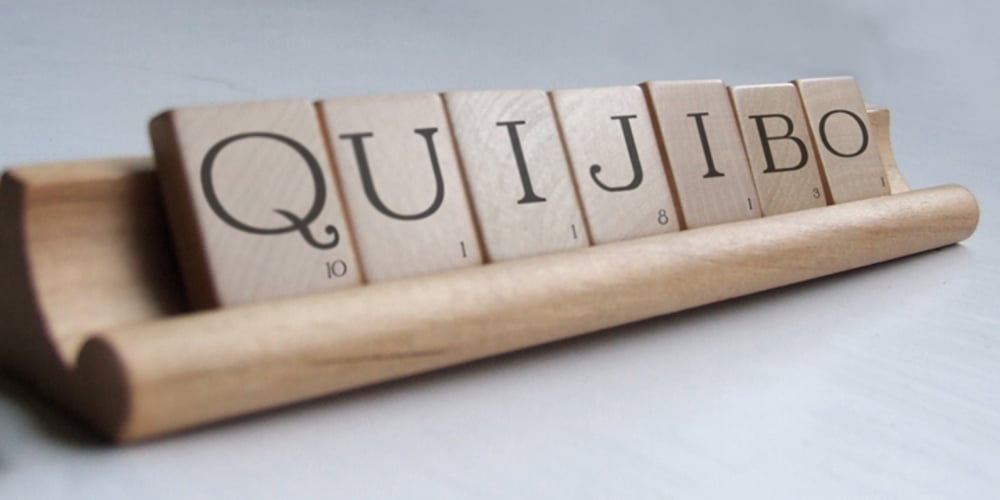
Quijibo Font Family was designed by Matt Frost and published by Matt Frost. Quijibo contains 12 styles and family package options. Hand-made slab serif. It’s cute, it’s versatile. It has a decorated version called Quijiboquail and a non-decorated version just called Quijibo. Each comes in three weights, plus italic. Each has 3,000+ kerning pairs. Go to http://facebook.com/frostfoundry to share this and see more!